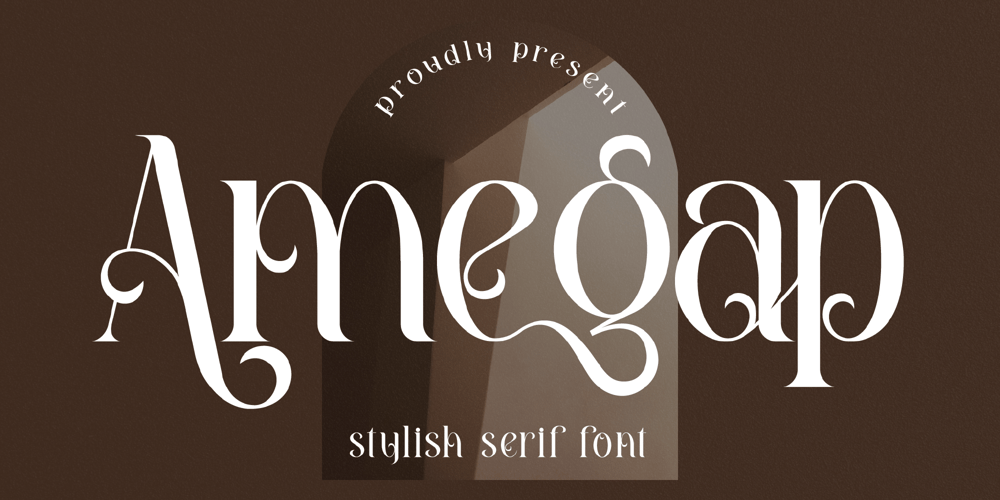
Amegap Font Family was designed by Heru Utama Putra and published by Letterena Studios. Amegap contains 2 styles and family package options. Amegap is a delicate and stylish serif font. Get inspired by its ravishing style and use it to create gorgeous designs. This font is PUA encoded which means you can access all glyphs and swashes with ease!